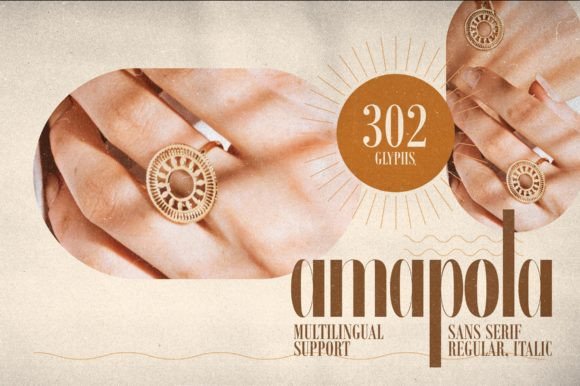
Amapola Font
Unveil the Allure of Amapola: A Sans Serif Symphony for Visual Enchantment
In a digital realm saturated with visual cacophony, Amapola emerges as a breath of fresh air, a font that captivates with its innate elegance and timeless beauty. Crafted with meticulous precision, this sans serif condensed typeface embodies sophistication and grace. Its carefully designed glyphs dance harmoniously upon the screen, inviting you to embark on a typographic journey like no other.
With Amapola, the boundaries of creative expression dissolve, allowing you to paint your digital canvas with a palette of visual delight. Whether you're a seasoned designer or just starting your creative exploration, Amapola will effortlessly elevate your projects to new heights of visual splendor.
Step into the world of Amapola and discover the endless possibilities that await. Let your imagination soar as you create elegant posters that whisper tales of romance and intrigue. Envision magazine covers that radiate sophistication, capturing the essence of luxury and high fashion. Picture social media banners that dance with vibrant energy, igniting conversations and captivating hearts.
Amapola's versatility extends beyond the digital realm, effortlessly adapting to the physical world of print. Its graceful presence lends itself perfectly to the creation of luxurious banners that demand attention, transforming ordinary spaces into captivating visual landscapes. Unleash your creativity and design breathtaking fashion ads that ooze glamour and allure, leaving an indelible mark on the minds of your audience.
With Amapola as your creative partner, you'll unlock a world of possibilities. Transform your website into a captivating digital haven, where every word dances with elegance and clarity. Reimagine your brand identity, crafting a visual narrative that resonates with your audience and sets you apart from the ordinary. Elevate your marketing materials to new heights of visual appeal, leaving a lasting impression that lingers long after the page is turned.
Welcome to the world of Amapola, where typography meets art, and where your creative vision takes center stage. Experience the magic of this extraordinary font and watch as your words blossom into visual masterpieces.